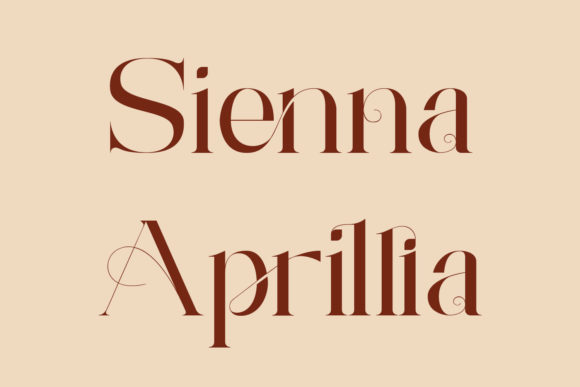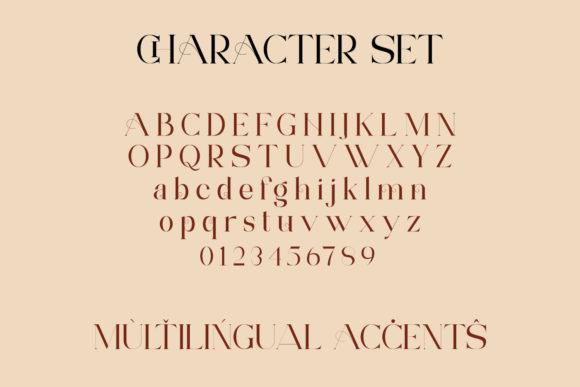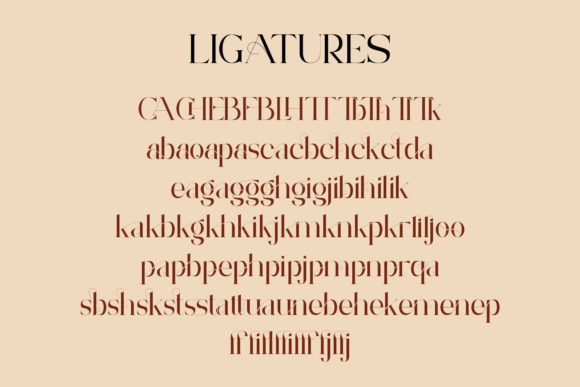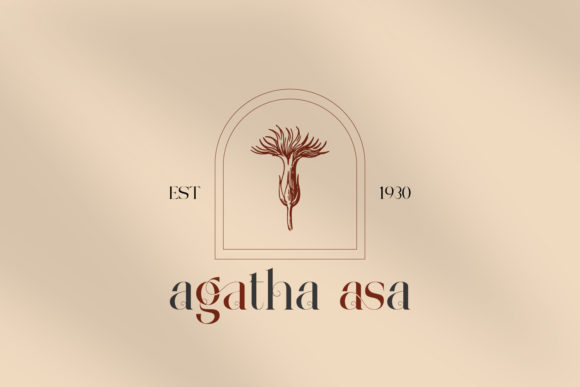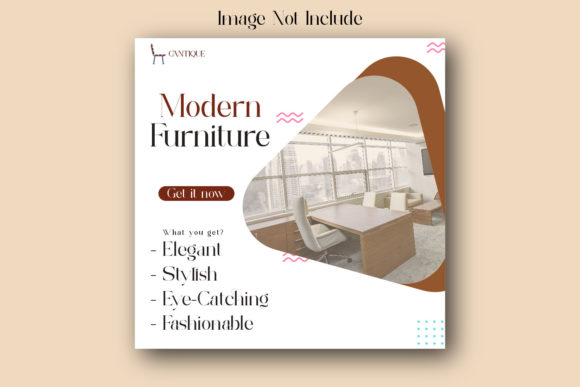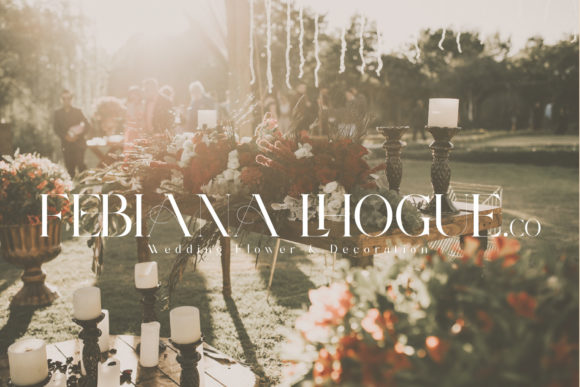
The Moment That Changed Your Design Game
Have you ever been stuck in a creative rut, staring at your computer screen, desperately searching for the perfect font to bring your design to life? It’s a feeling we’ve all been there, and it’s frustrating. But what if I told you there’s a font that can change that?
Meet the Archwaltz Font, a stunning serif font that’s as elegant as it is versatile. With its bold and thin design, this font is perfect for creating eye-catching designs that demand attention. And the best part? It’s PUA encoded, making it incredibly easy to access all of its glyphs and swashes. This means you can unlock the full potential of the Archwaltz Font and take your designs to the next level.
For designers, the Archwaltz Font is a valuable addition to any toolkit. Its unique style and versatility make it perfect for a wide range of projects, from logos and branding to editorial and advertising designs. So why settle for an ordinary font when you can have an extraordinary one? Discover the power of the Archwaltz Font and elevate your designs today!
Key Features of Archwaltz Font
- Unique Characteristics: The Archwaltz Font features a unique blend of modern and vintage elements, with intricate details and ornate flourishes that set it apart from other fonts.
- Font Style: The font comes in multiple styles, including regular, bold, italic, and bold-italic, offering flexibility for designers to choose the perfect look for their projects.
Archwaltz Font Review
I recently had the chance to work with the Archwaltz font, and I must say it’s an interesting addition to my design toolkit. ✨ One of the things that works well is its versatility – it’s suitable for both digital and print projects, and can be used in a wide range of styles, from modern to elegant.
Another strength of the Archwaltz font is its legibility. ✨ The font is well-spaced and easy to read, even at smaller font sizes, making it a great choice for body text or captions.
However, there are some limitations to consider. ⚠️ For one, the font’s range is somewhat limited – it only includes uppercase and lowercase letters, as well as some basic punctuation. This may not be suitable for projects that require a full character set.
Additionally, ⚠️ the font’s bold and italic weights can feel a bit inconsistent, which may affect the overall aesthetic of your design.
Design Decision
Overall, the Archwaltz font is a solid choice for designers who need a clean, modern font for digital or print projects. While it may not be suitable for all types of projects, it’s a great addition to any design toolkit.
Recommendation
- Use the Archwaltz font for digital or print projects that require a modern, elegant feel.
- Avoid using the font for projects that require a full character set or extensive punctuation.
- Be mindful of the font’s bold and italic weights, and consider using alternative fonts for consistency.
The Archwaltz Font is ideal for creating elegant and sophisticated designs. Use it for:
- Luxury brand logos and packaging.
- High-end fashion and beauty advertising.
Remember to pair the Archwaltz Font with complementary colors and designs to maximize its impact.